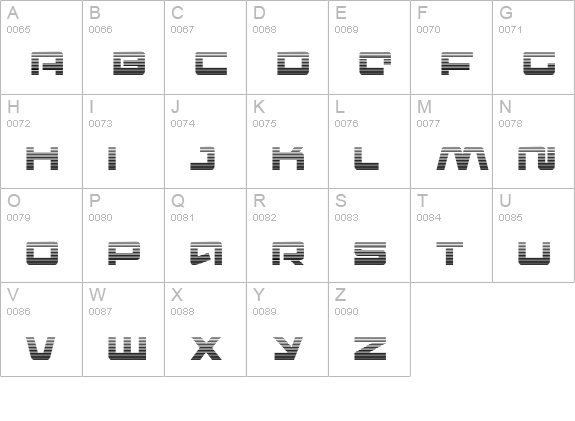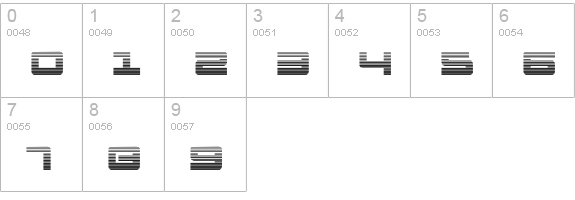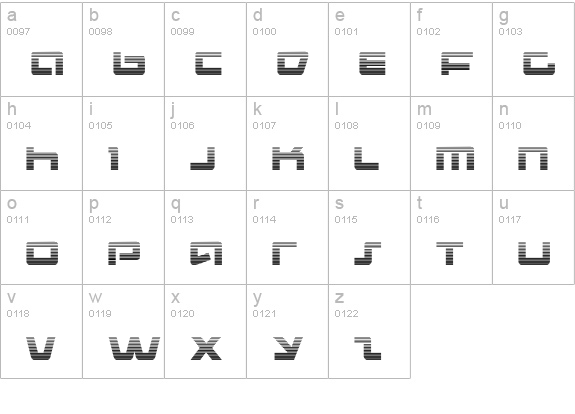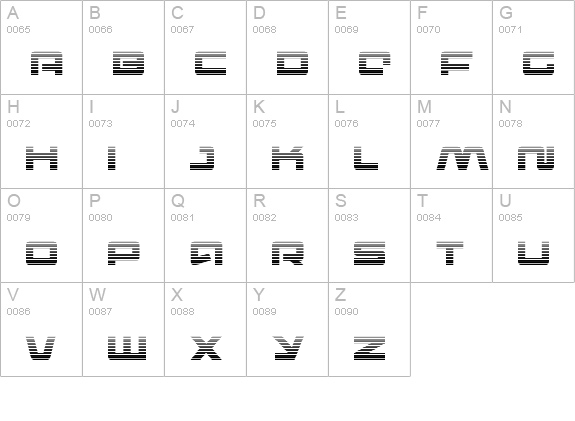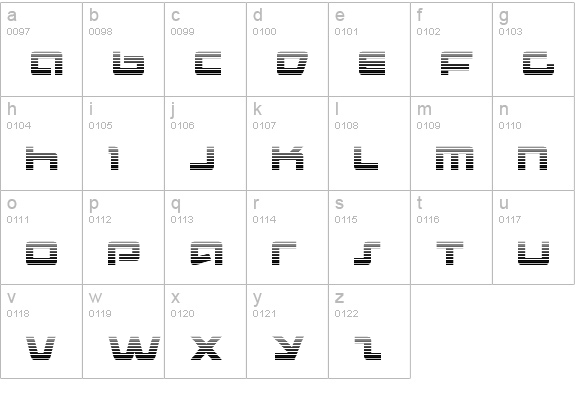
Introducing Pulse Rifle Gradient font, a sleek and futuristic typeface that exudes energy and modernity. This cutting-edge font features a unique gradient effect that adds depth and dimension to your design projects. With its clean lines and bold style, Pulse Rifle Gradient is perfect for creating eye-catching headlines, logos, posters, and more. The best part? Pulse Rifle Gradient font is completely free to download at FontsMarket.com! Whether you're a graphic designer, web developer, or just a font enthusiast, this versatile typeface is sure to elevate your work to the next level. Don't miss out on the opportunity to add this dynamic font to your collection today. Download Pulse Rifle Gradient font now and unleash your creativity!